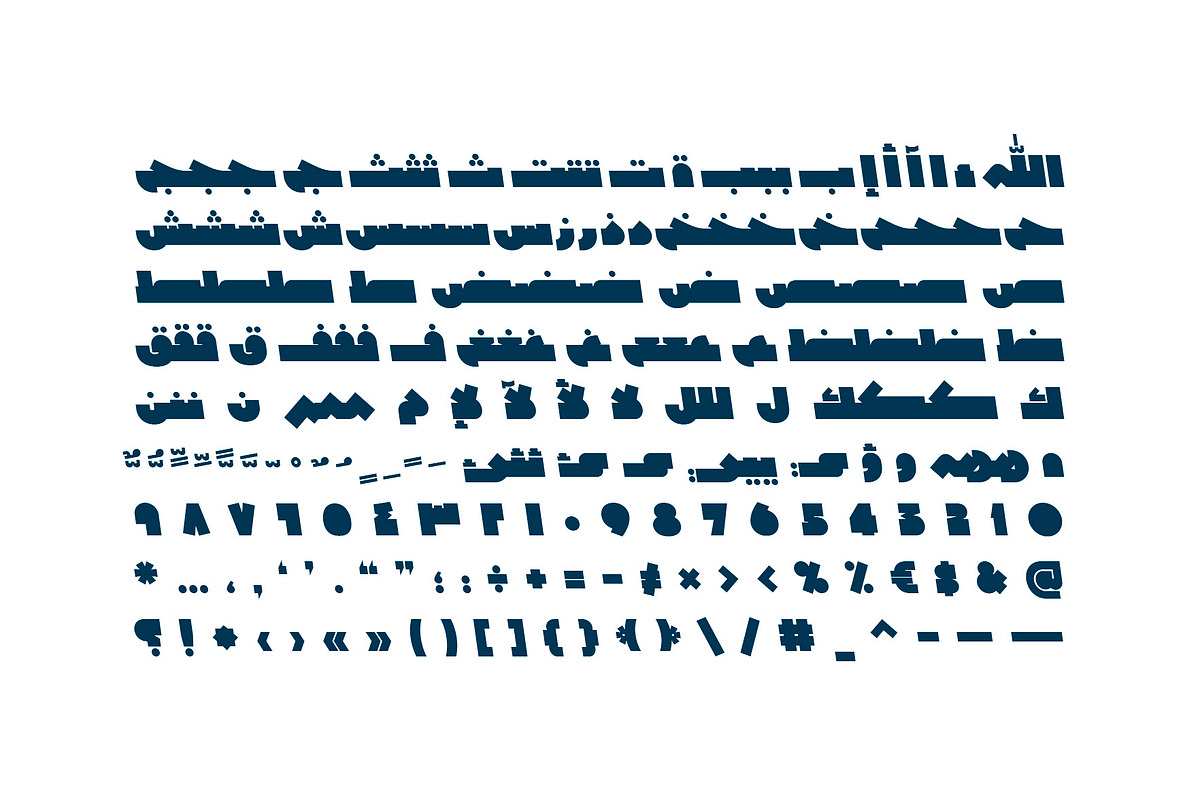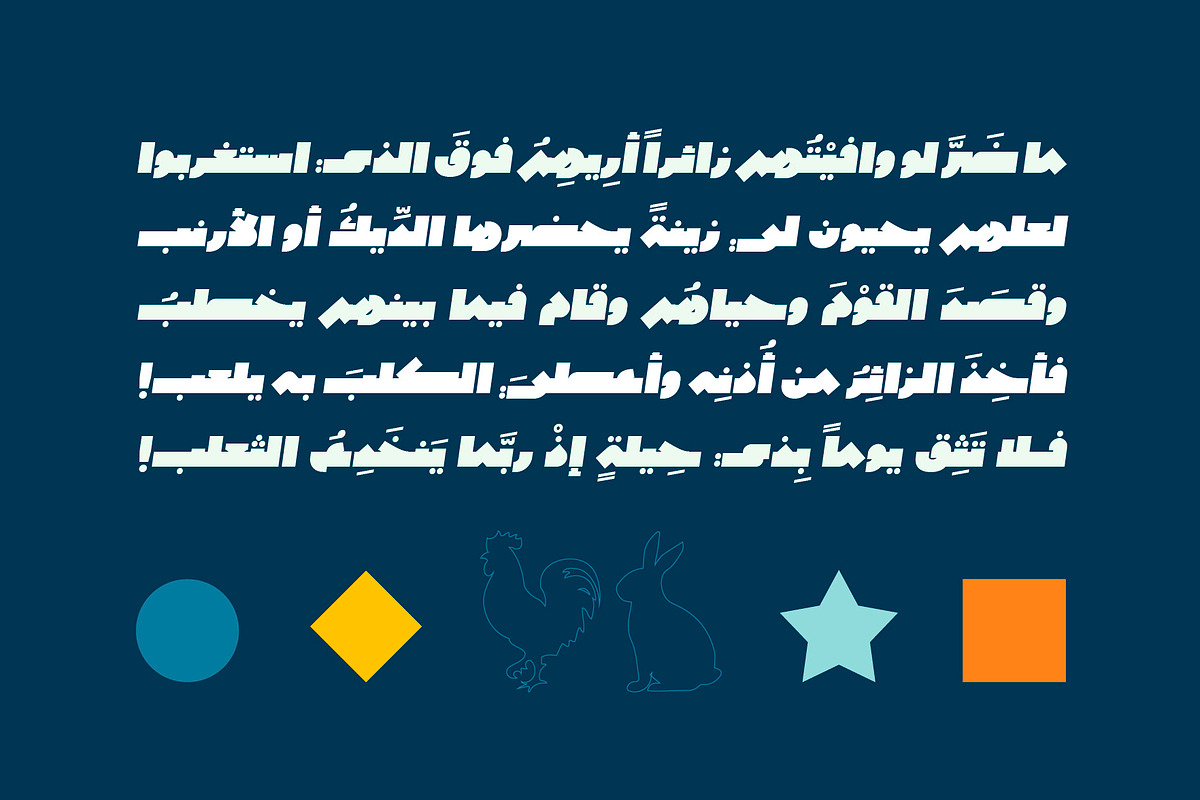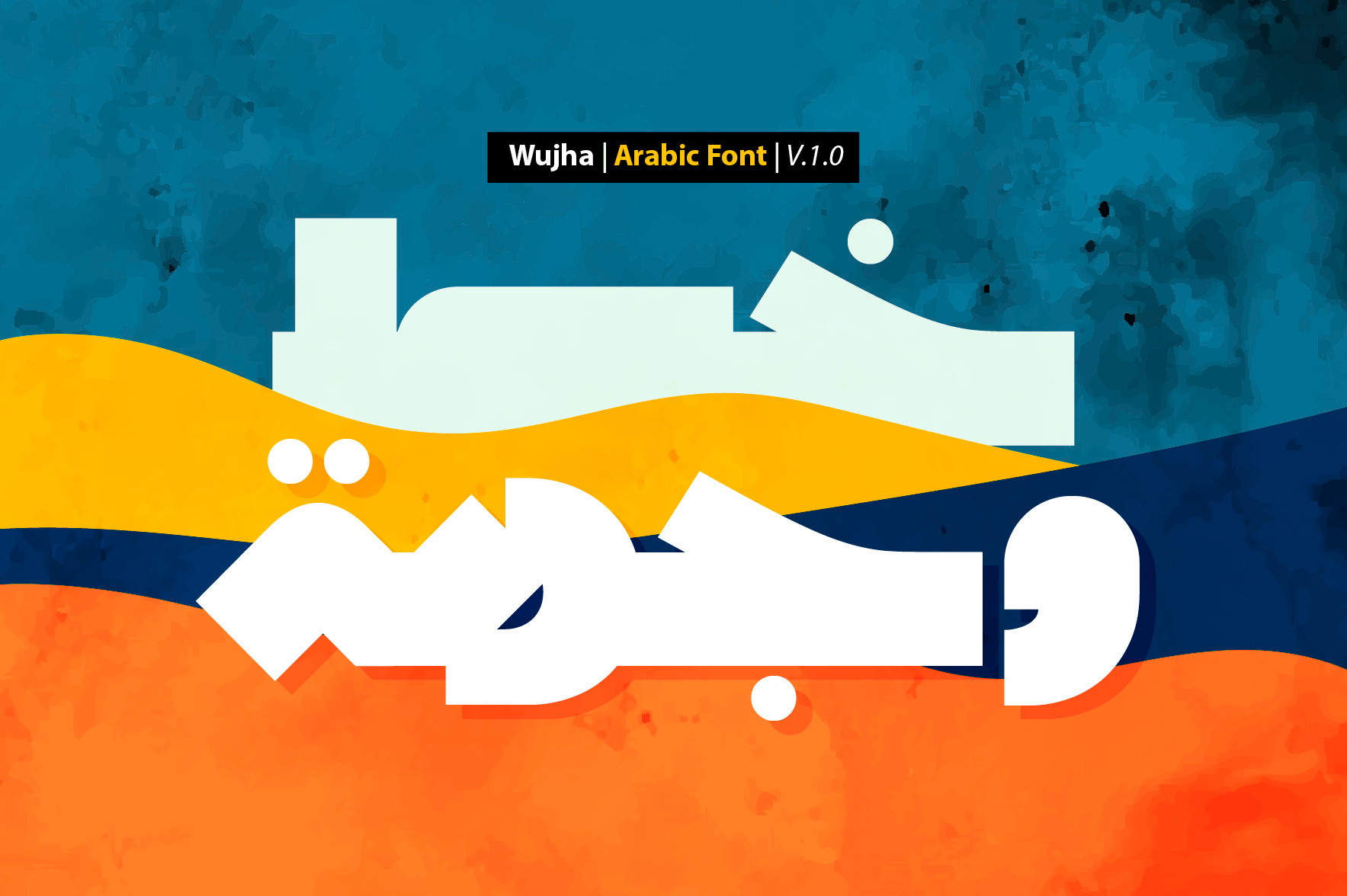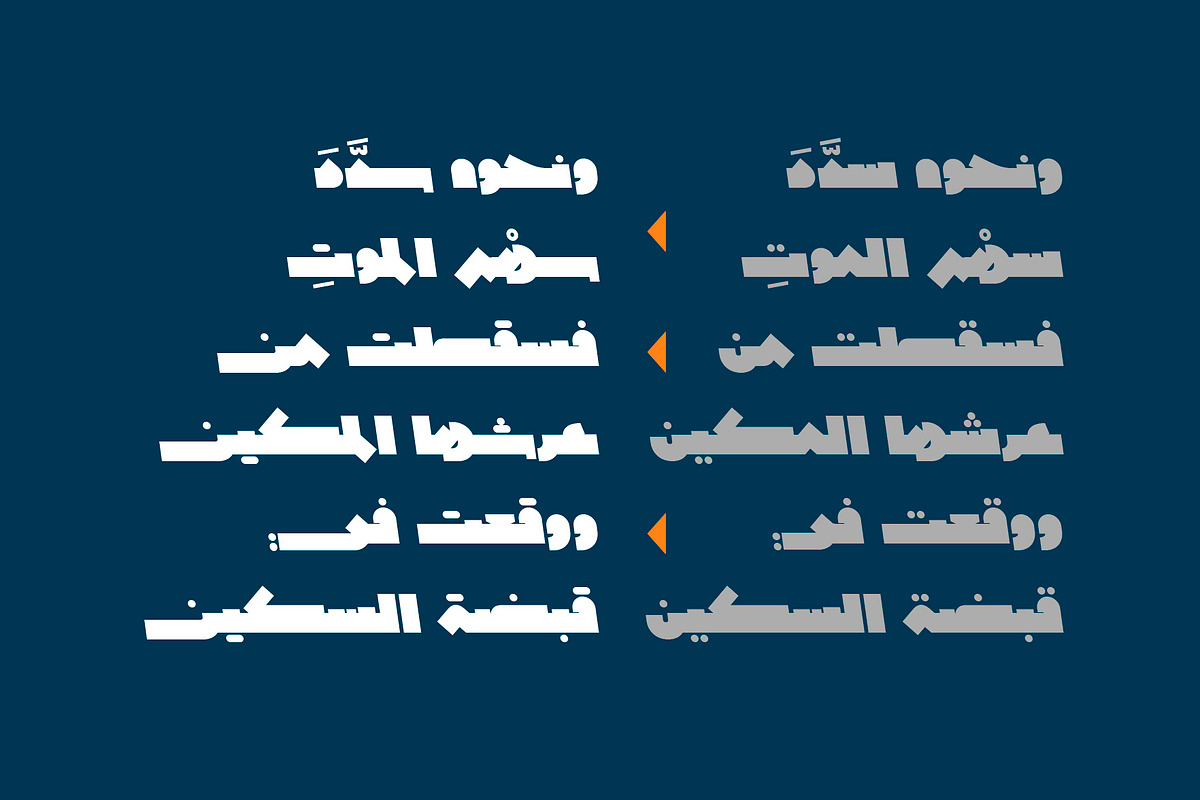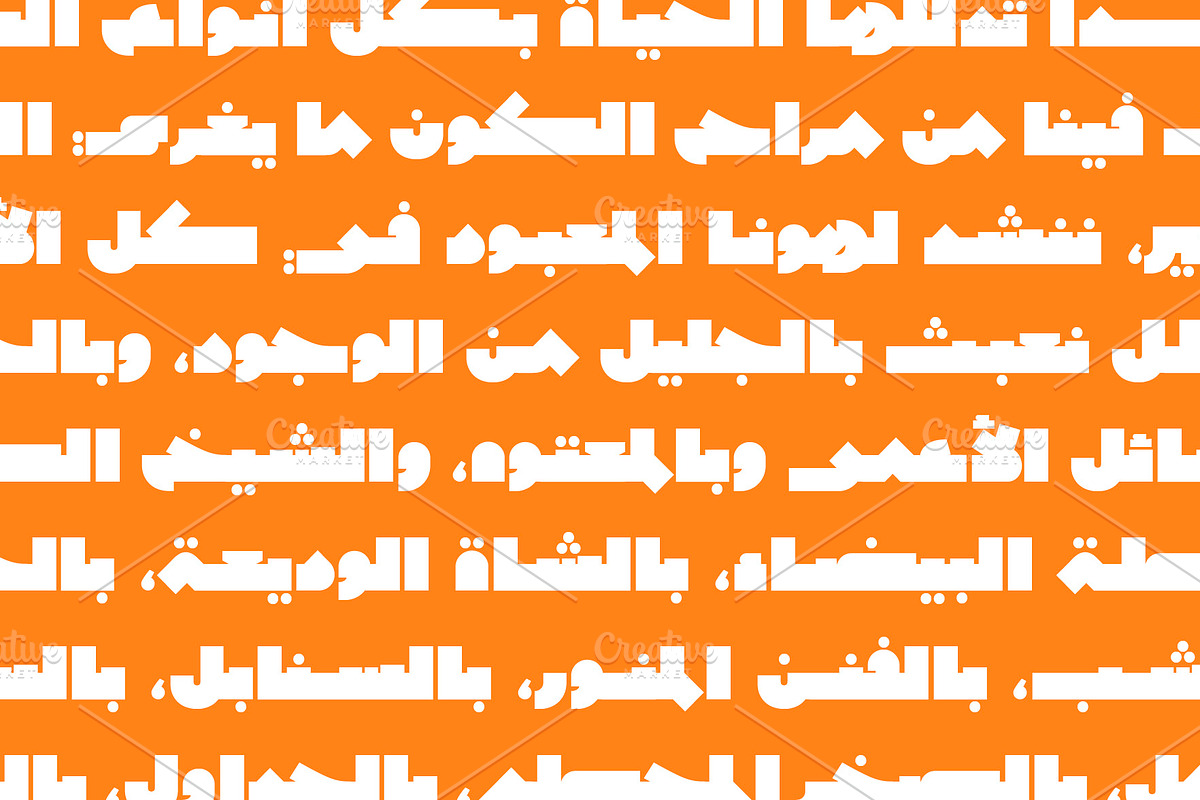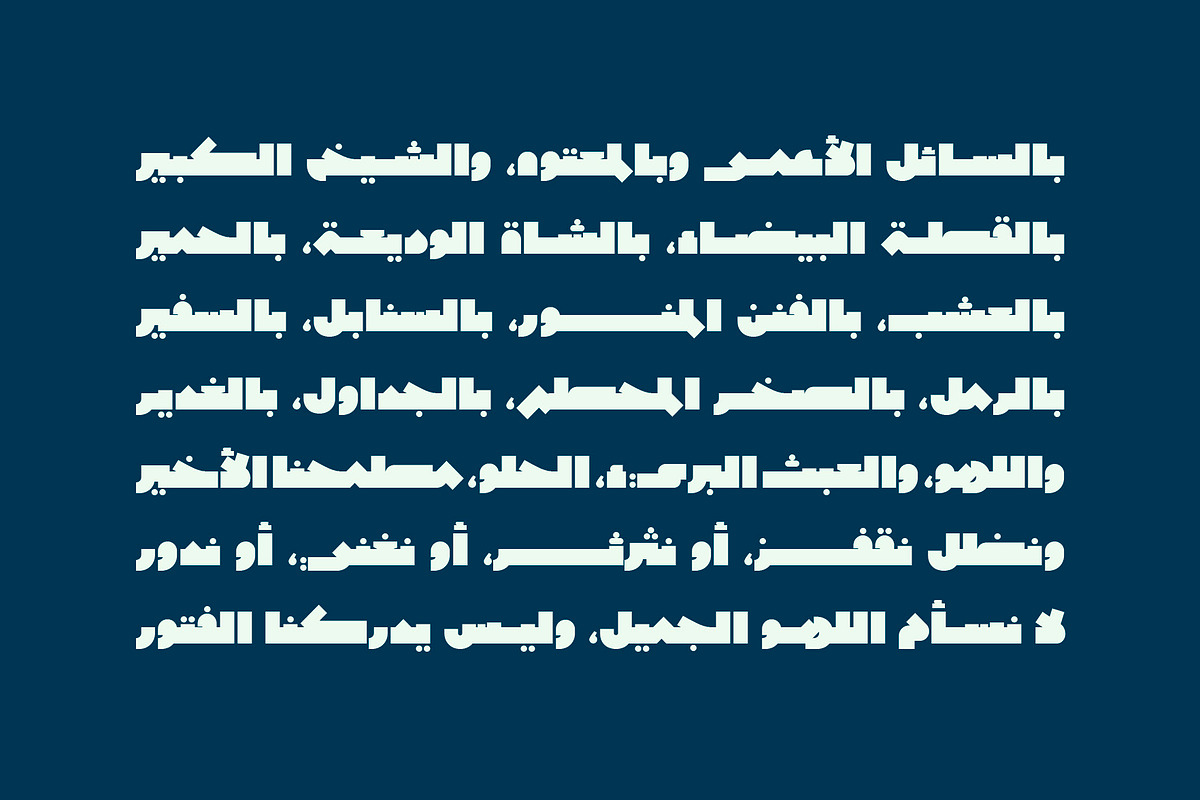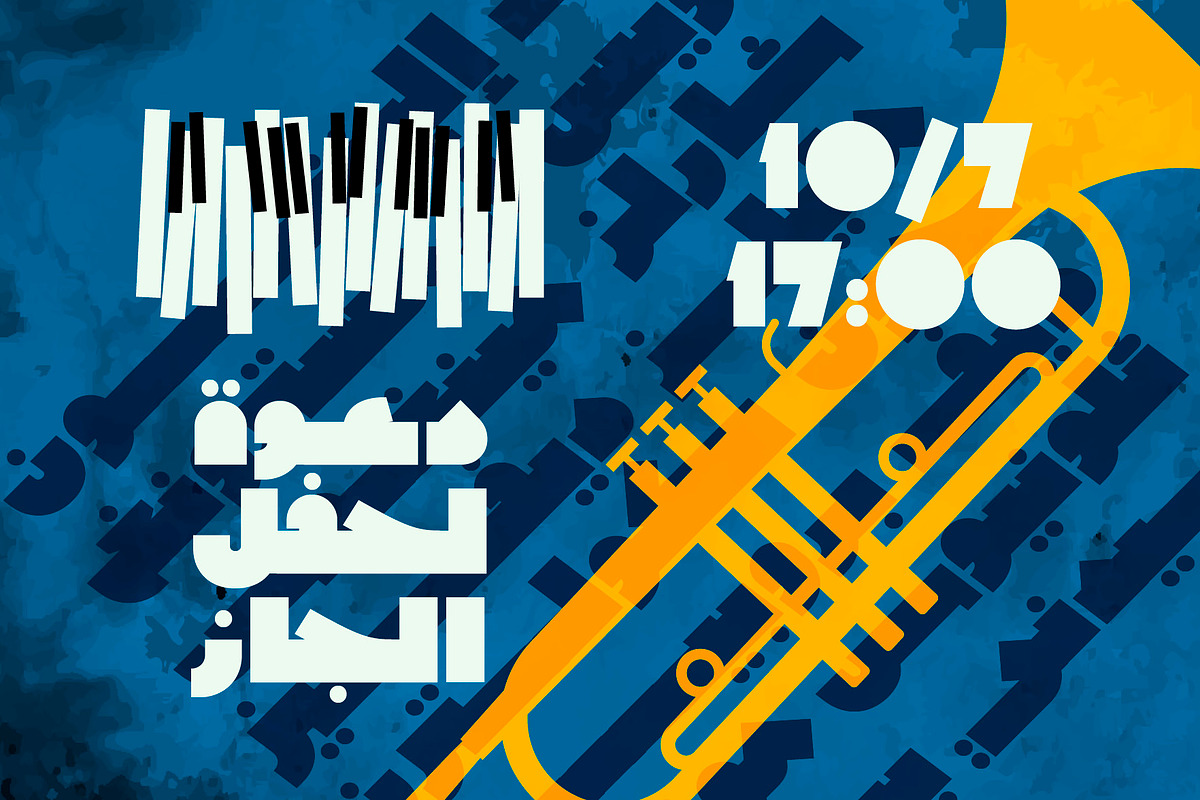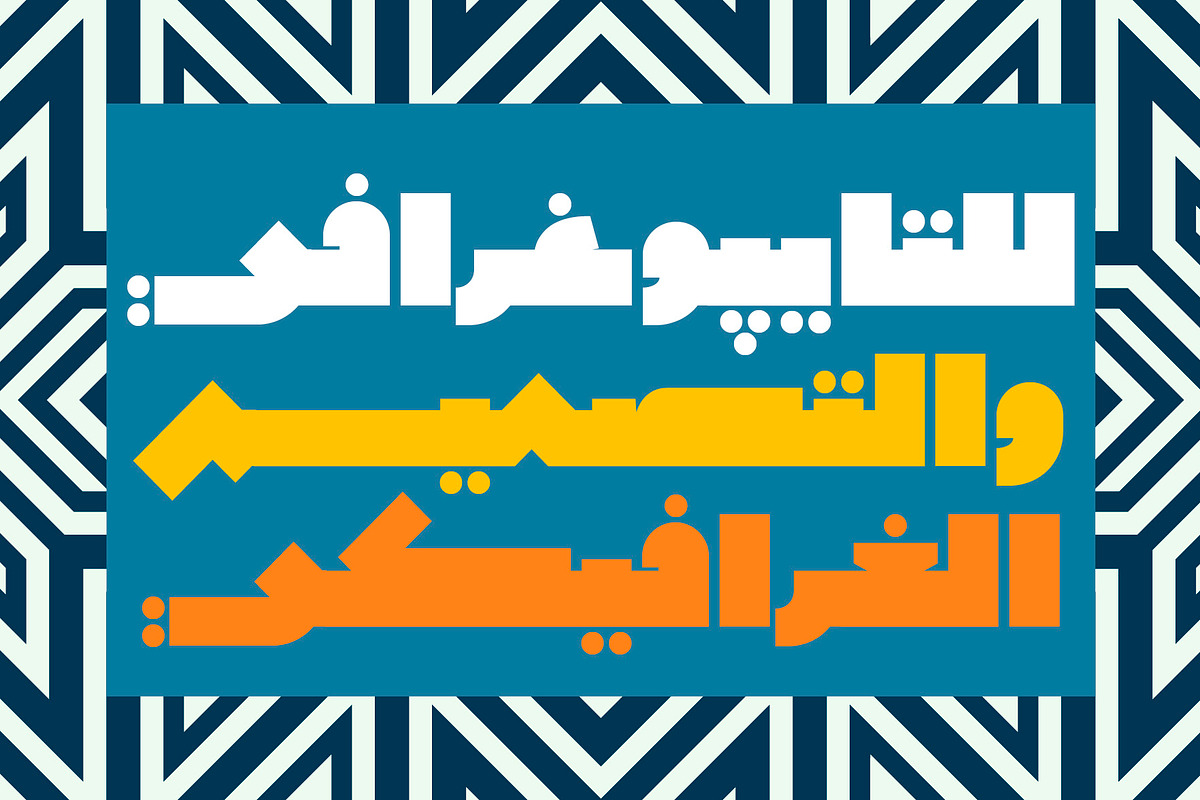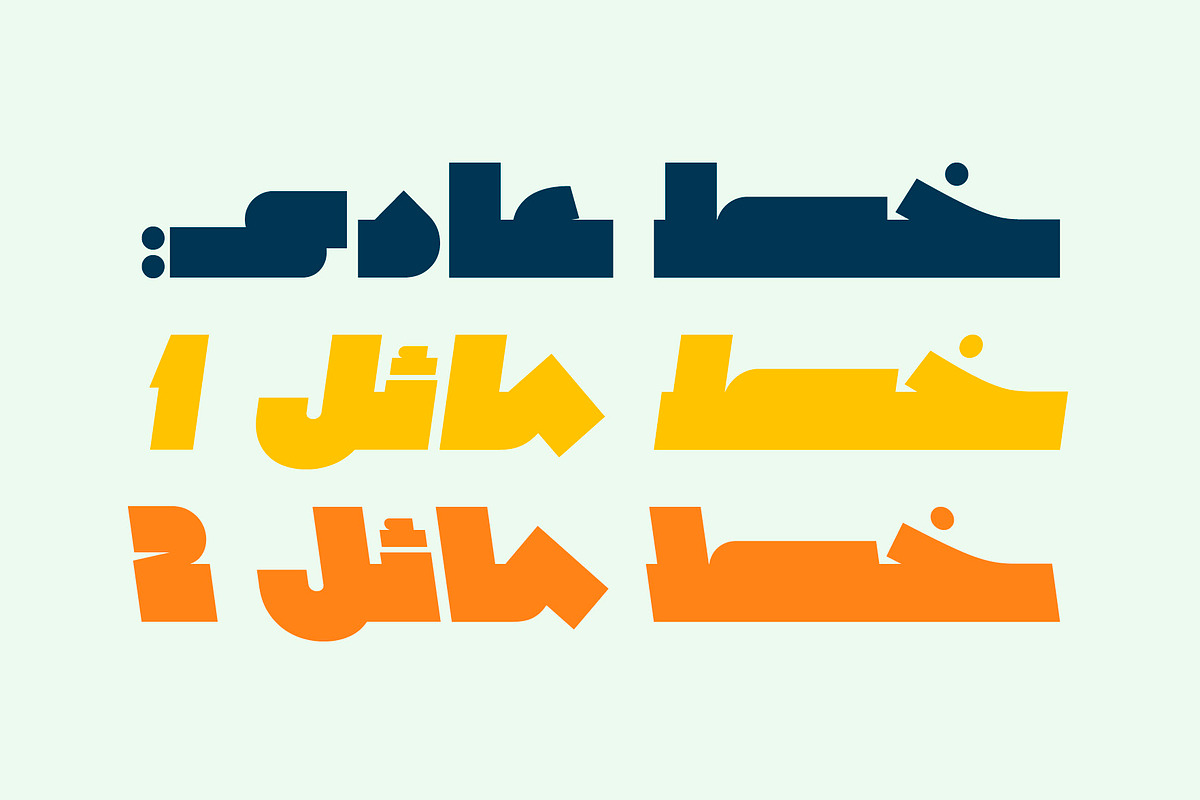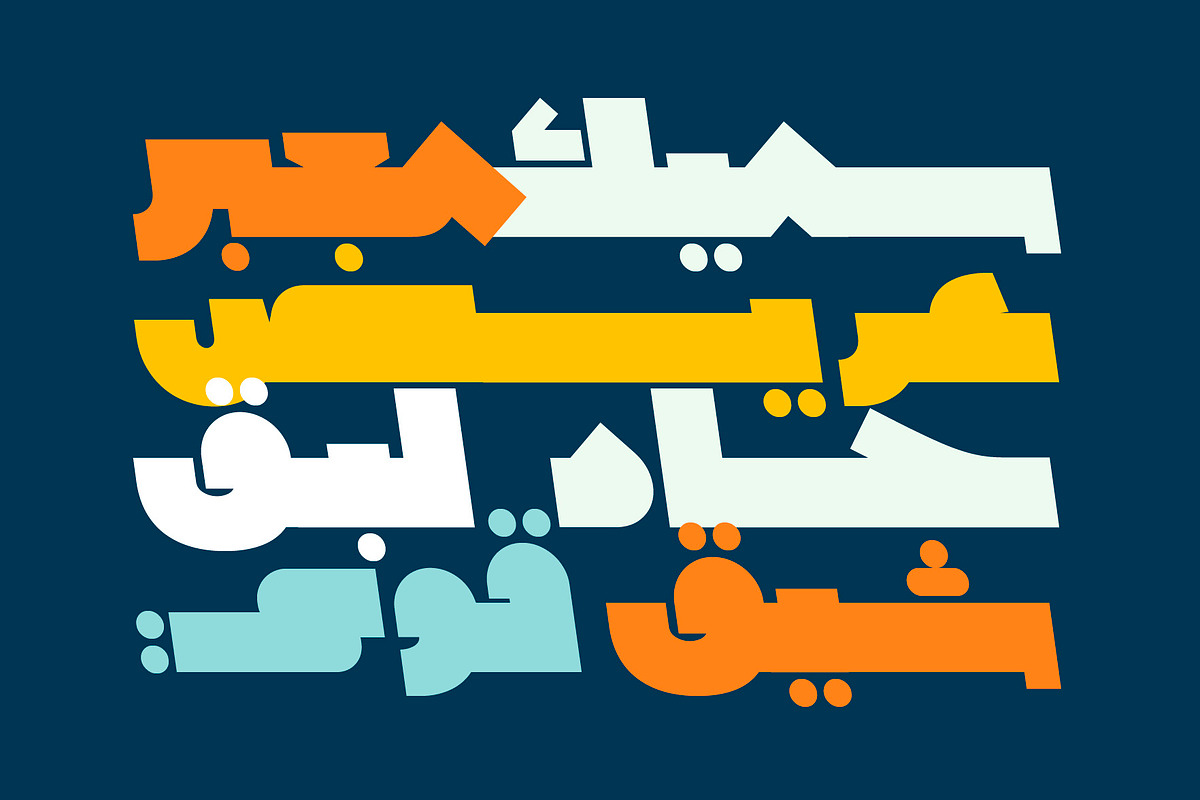
Wujha - Arabic Font
Wujha, meaning 'Direction' in Arabic, is a striking display font characterized by its bold and streamlined letterforms. This font artfully merges elements of Ru'qua and Kufi scripts, offering a distinctive typing experience. Ideal for a wide array of creative projects such as web design, print media, branding, advertising, and UI/UX typography, Wujha comes in three styles (Black, Oblique1, and Oblique2) and is fully compatible with Windows, macOS, and mobile applications.